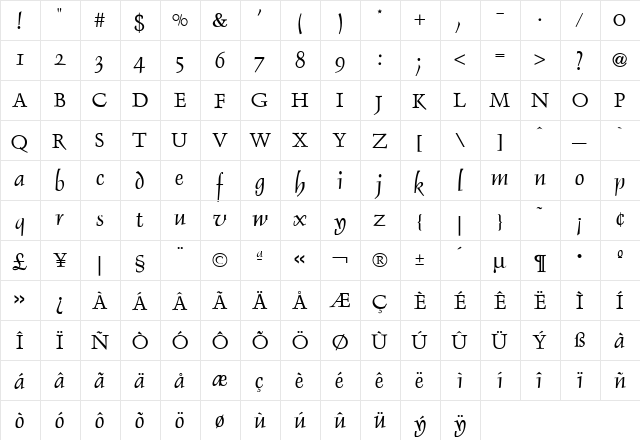
Dauphin Regular
Design Context for Dauphin Typeface
Dauphin takes a measured approach to typography — its balanced proportions and neutral character make it a reliable workhorse for both digital and print work.